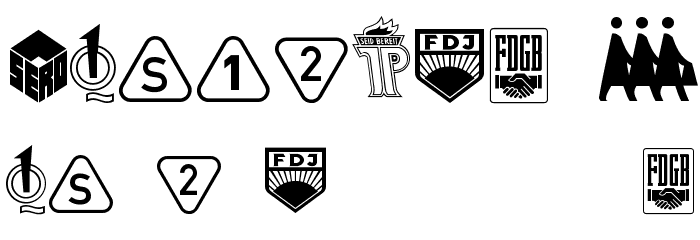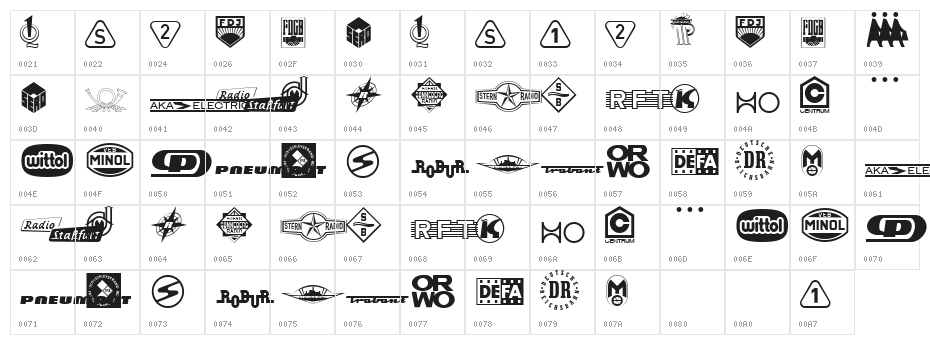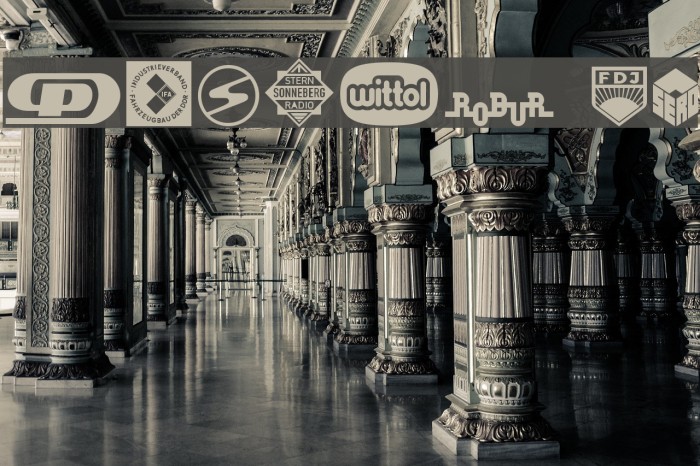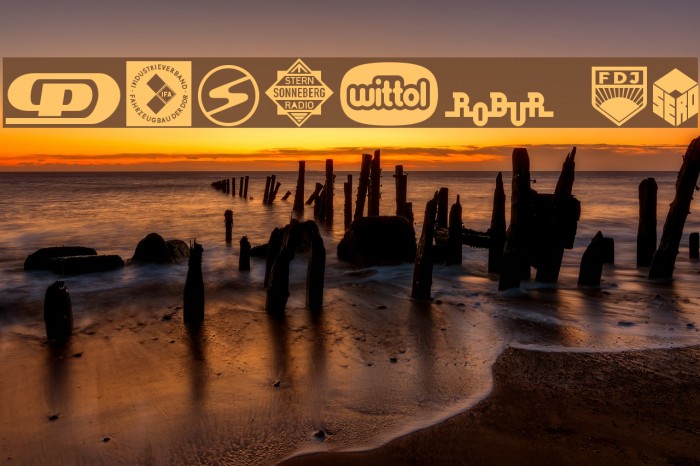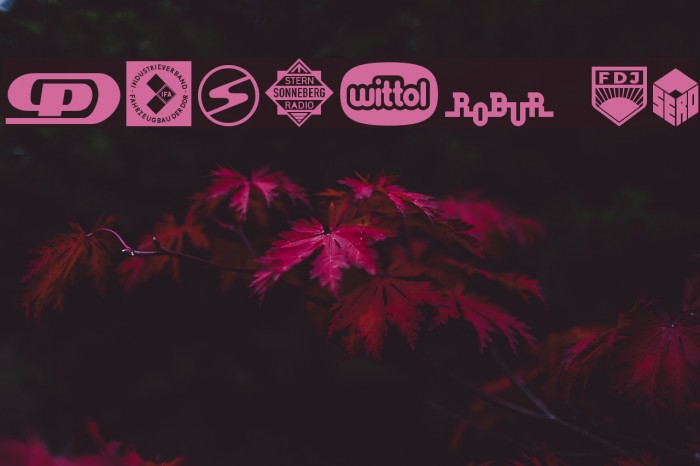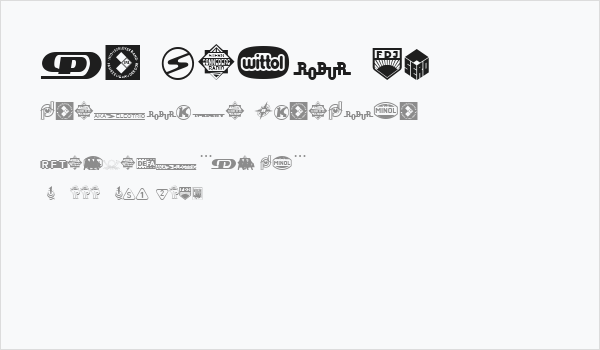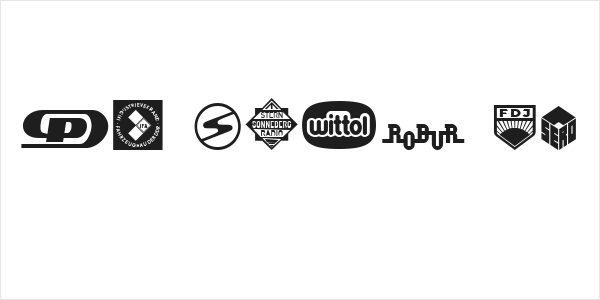
Präsent 60 Font
Präsent 60 Description
A collection of retro, geometric, and emblematic logotypes and symbols with bold lines, high contrast, and a mix of sans-serif and decorative lettering, often enclosed in shapes such as circles, hexagons, and triangles. The designs evoke a mid-20th-century industrial and institutional aesthetic, with some elements resembling badges or signage.
Overall StyleVintage, Industrial, Decorative
Use CaseLogos, Badges, Posters, Signage
Proposed ProjectsBranding for vintage-inspired products, poster design, retro packaging, themed events, or historical documentaries.